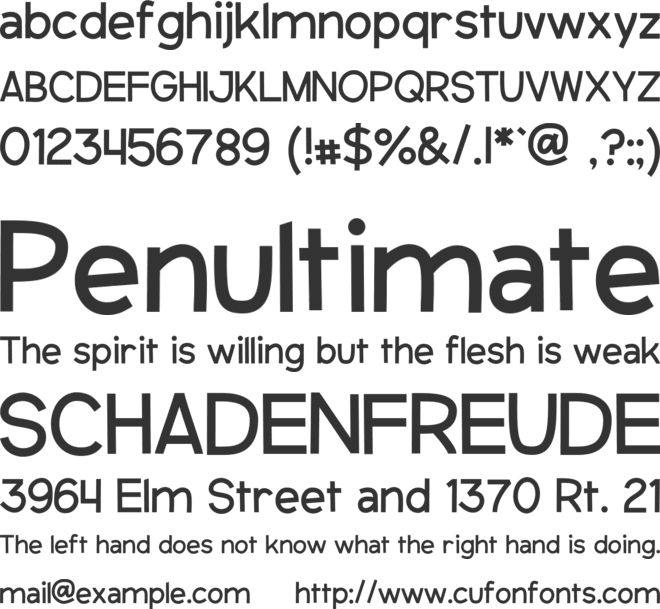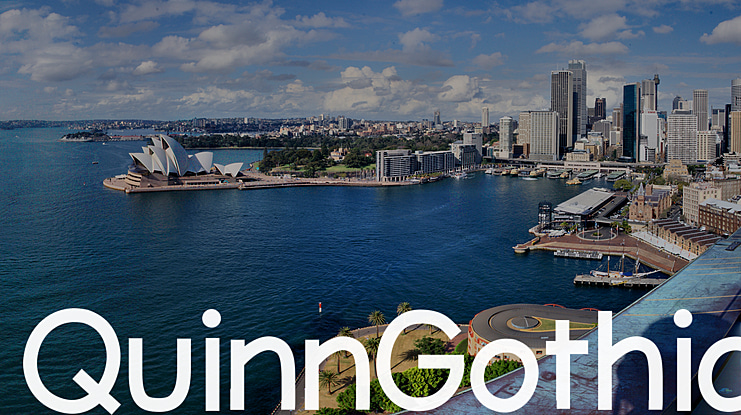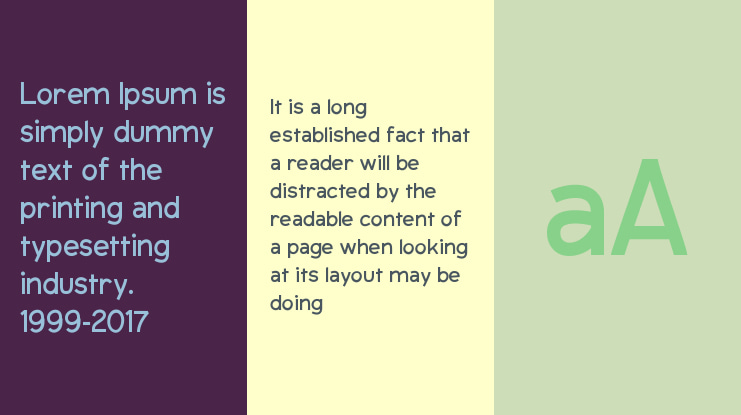
QuinnGothic Font
Quinn Gothic is my first sans serif font. It took a lot of different revisions to get right, but here it is, finally!
This is a remake of the original ( https://www.fontspace.com/quinn-gothic-font-f42022 ) with complete Basic Latin support.